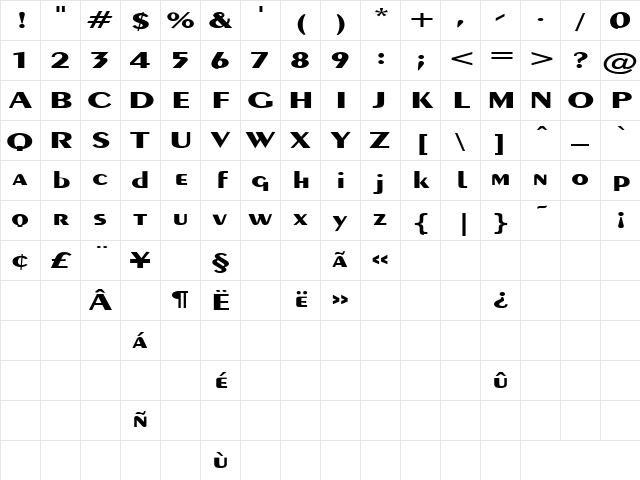
Physical 10 Regular
Design Context for Physical 10
Physical 10 is a composed and adaptable typeface that performs quietly and consistently across a wide range of design contexts.